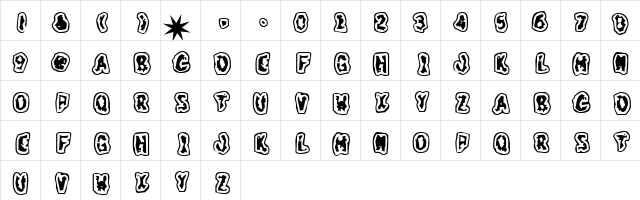
GrungeTastik Regular
Design Context for GrungeTastik Typeface
GrungeTastik trades polish for personality, using distressed and eroded forms to bring grit and attitude to creative work.
Suited to punk-influenced zines, underground music branding, streetwear, and raw, anti-corporate design.
Pro Tip: Pair GrungeTastik with intentionally raw or lo-fi design elements. Fighting against it with overly polished surroundings will undermine its personality.